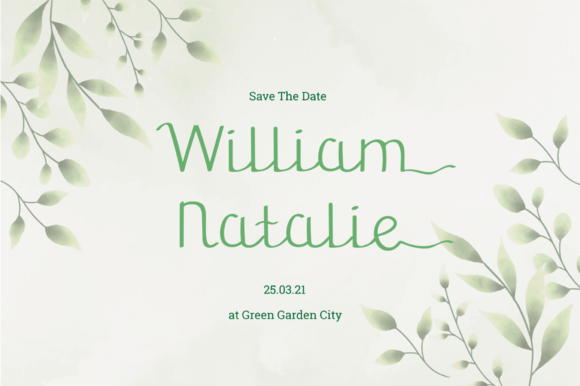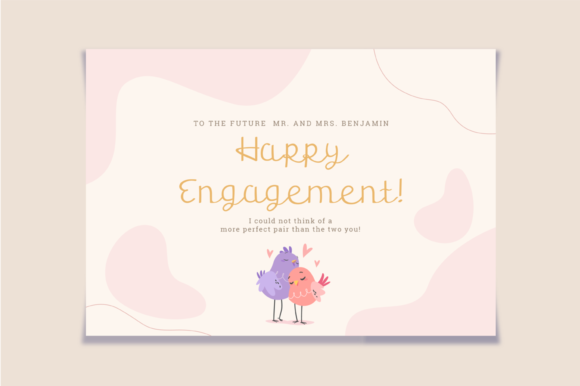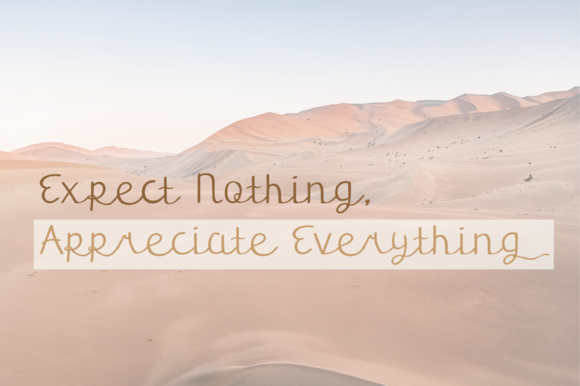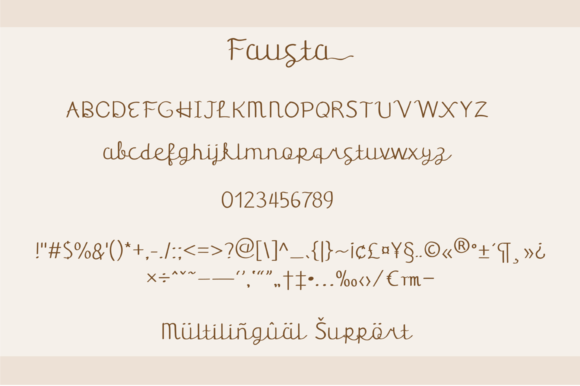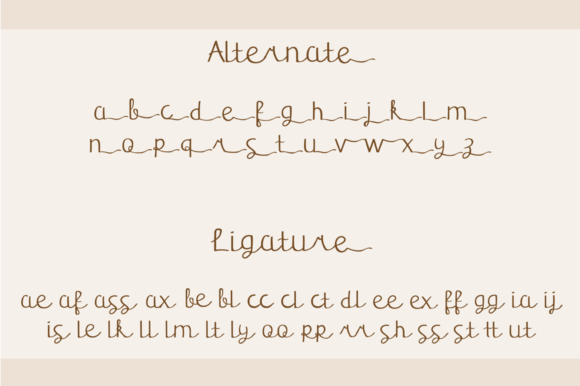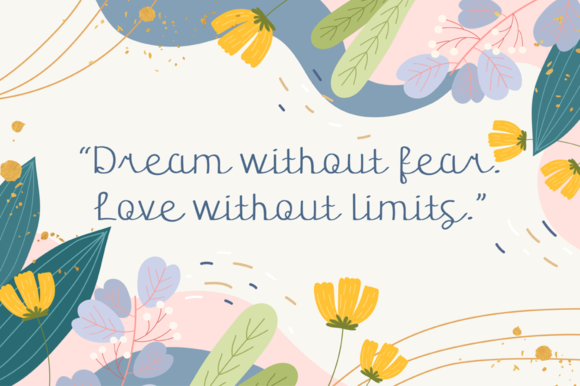
Introducing Fausta Font: A Timeless Handwritten Masterpiece
Are you a designer or crafter looking for a unique and captivating font to elevate your creative projects? Look no further than Fausta Font, a lovely and timeless handwritten font that is sure to make your designs come alive! In this article, we’ll dive into the features and benefits of Fausta Font, and explore why it’s the perfect choice for creating eye-catching logos, branding, and quotes.
A Beautifully Crafted Handwritten Font
Fausta Font is a stunning example of a handwritten font, with each letter carefully crafted to showcase a unique and beautiful touch. The font’s elegant and flowing lines make it perfect for creating a wide range of designs, from logos and branding to quotes and social media graphics. Whether you’re looking to add a personal touch to your designs or create a bold and eye-catching statement, Fausta Font is the ideal choice.
One of the standout features of Fausta Font is its PUA (Private Use Area) encoding. This means that you can access all of the glyphs and swashes with ease, giving you complete creative control over your designs. With PUA encoding, you can effortlessly navigate the font’s extensive character set, including ligatures, alternates, and swashes, to create truly unique and customized designs.
Ideal for Logos, Branding, and Quotes
Fausta Font is specifically designed with logos, branding, and quotes in mind. Its elegant and sophisticated style makes it perfect for creating high-end branding and logos that will leave a lasting impression on your audience. The font’s unique and beautiful touch also makes it ideal for creating eye-catching quotes and social media graphics that will help you stand out from the crowd.
Why Choose Fausta Font?
So why choose Fausta Font over other fonts on the market? Here are just a few reasons why designers and crafters are falling in love with this beautiful handwritten font:
- Unique and Beautiful Touch: Each letter in Fausta Font has a unique and beautiful touch, making it perfect for creating one-of-a-kind designs.
- PUA Encoded: With PUA encoding, you can access all of the glyphs and swashes with ease, giving you complete creative control over your designs.
- Elegant and Sophisticated Style: Fausta Font’s elegant and sophisticated style makes it perfect for creating high-end branding and logos.
Tips for Using Fausta Font
Here are a few tips for getting the most out of Fausta Font:
- Experiment with Different Sizes and Colors: Fausta Font looks great in a variety of sizes and colors, so don’t be afraid to experiment and find the perfect combination for your design.
- Pair with Other Fonts: Fausta Font pairs beautifully with other fonts, so try combining it with a bold or sans-serif font to create a unique and eye-catching design.
- Use Swashes and Ligatures: Fausta Font’s PUA encoding gives you access to a range of swashes and ligatures, so be sure to use them to add a touch of elegance and sophistication to your designs.
In conclusion, Fausta Font is a timeless handwritten font that is perfect for designers and crafters looking to create eye-catching logos, branding, and quotes. With its unique and beautiful touch, PUA encoding, and elegant and sophisticated style, Fausta Font is the ideal choice for anyone looking to elevate their creative projects. So why wait? Download Fausta Font today and start creating stunning designs that will leave a lasting impression on your audience!